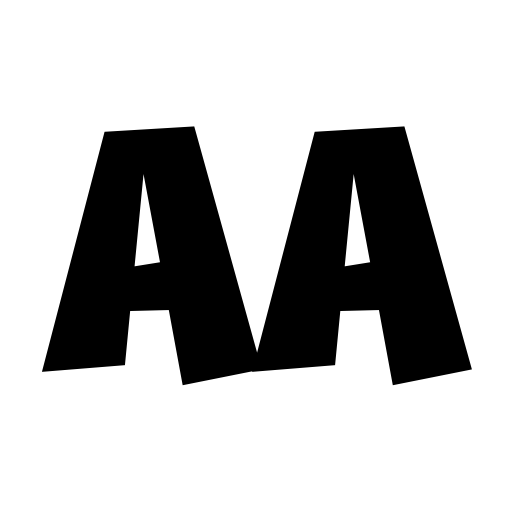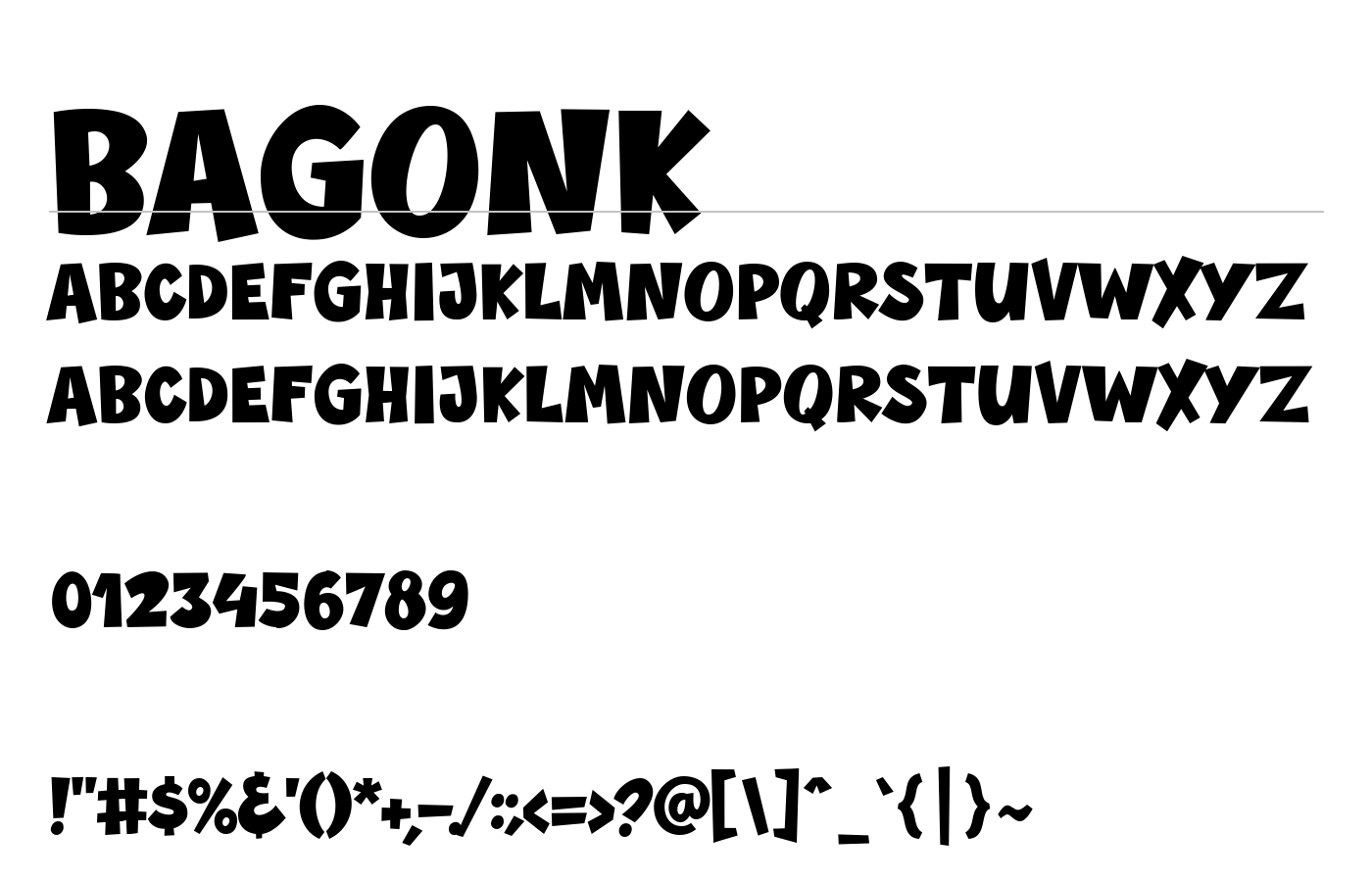
Bagonk is a bold, playful sans serif font with a chunky, uneven style that gives it a fun and informal character. Its letters have a slightly quirky, hand-crafted feel with irregular shapes and varying widths, making it perfect for projects that want to convey energy and creativity. This font works well for eye-catching headlines, posters, children's designs, and casual branding where a lively and approachable tone is desired.
Bagonk Font
About Bagonk Font